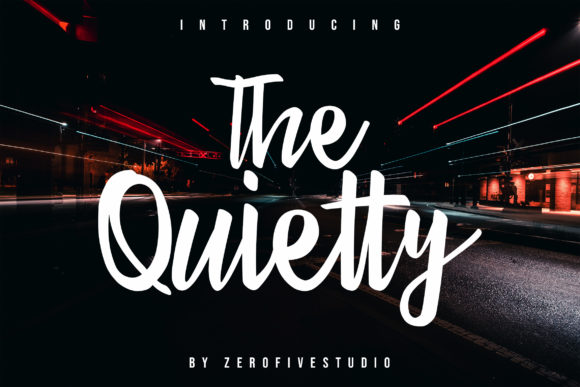
Download The Quietty Font today and invite a touch of authenticity and grace into your designs. This exquisite script font, meticulously crafted by the talented zerofivestudio, seamlessly blends the elegance of handwritten strokes with a refreshingly modern aesthetic.
At its core, The Quietty Font embodies the essence of simplicity, yet it captivates with its subtle nuances. Each letter dances across the page with an effortless flow, as if guided by the hand of a master calligrapher. The result is a font that is both visually stunning and deeply evocative.
Unlike ordinary fonts that fade into the background, The Quietty Font demands attention with its captivating presence. Its carefully balanced curves and delicate flourishes lend an air of sophistication to any project, from personal invitations to professional branding.
Immerse yourself in the world of The Quietty Font and discover a realm of creative possibilities. Its versatile nature empowers you to express your unique style, whether you're crafting heartfelt letters, designing eye-catching posters, or creating stunning social media graphics.
With The Quietty Font at your fingertips, you'll never have to settle for ordinary again. Its authenticity will elevate your designs to new heights, leaving a lasting impression on your audience.